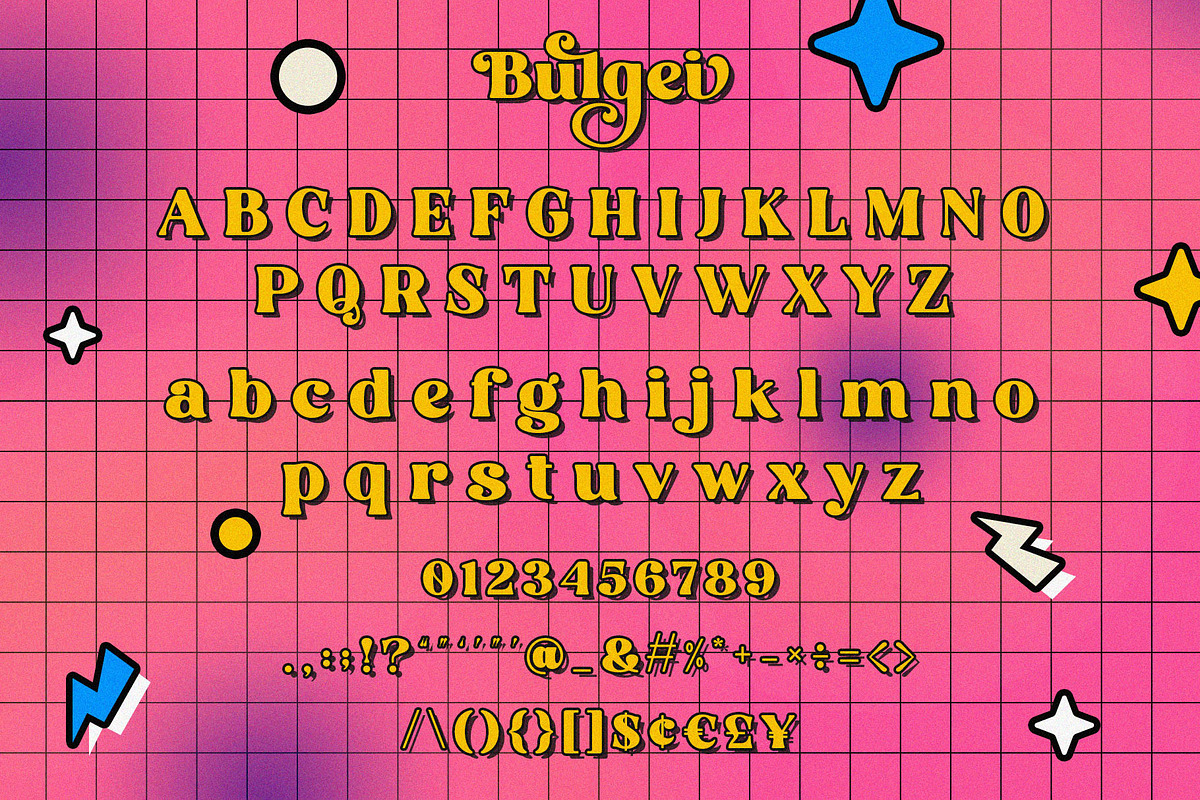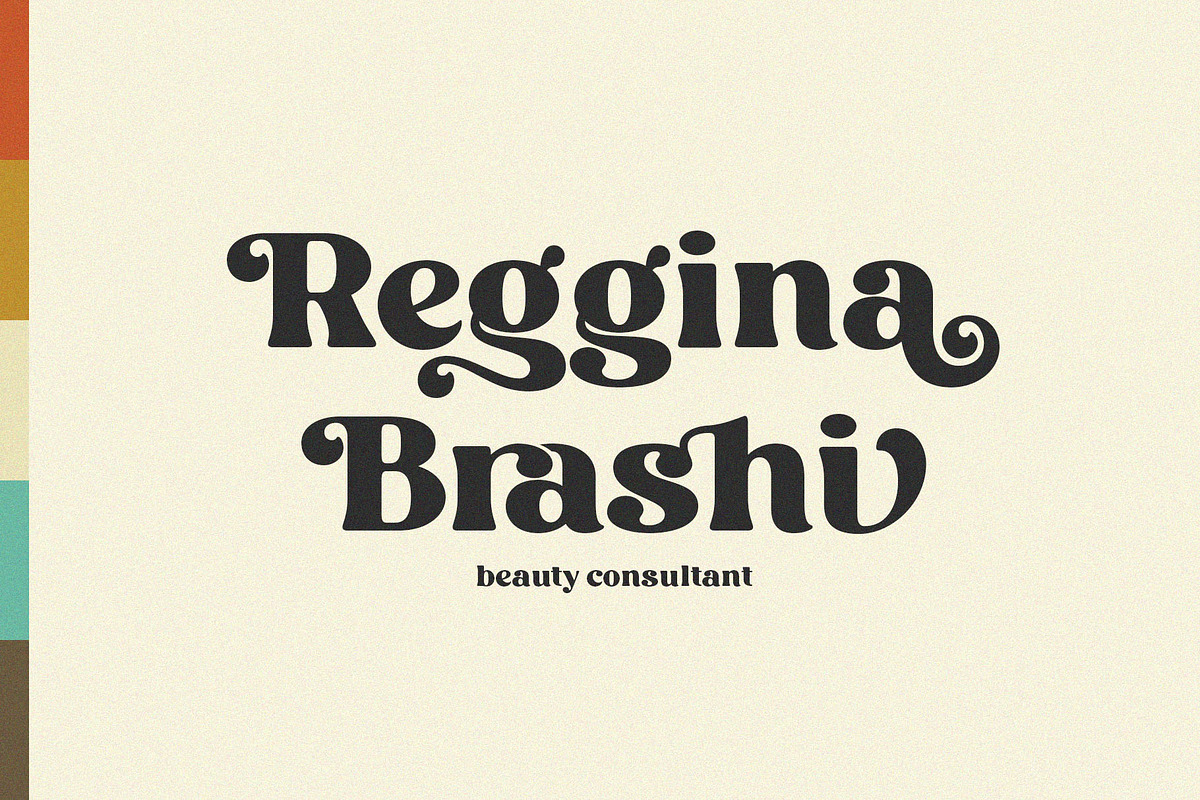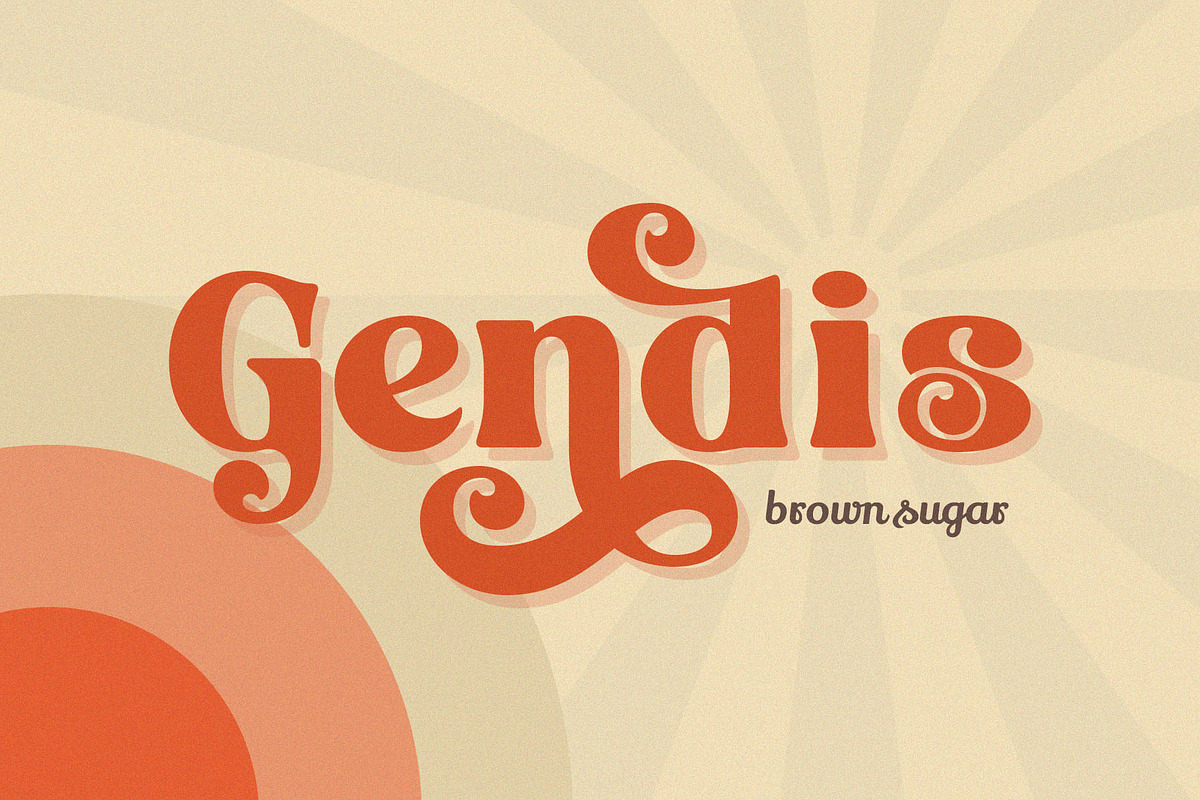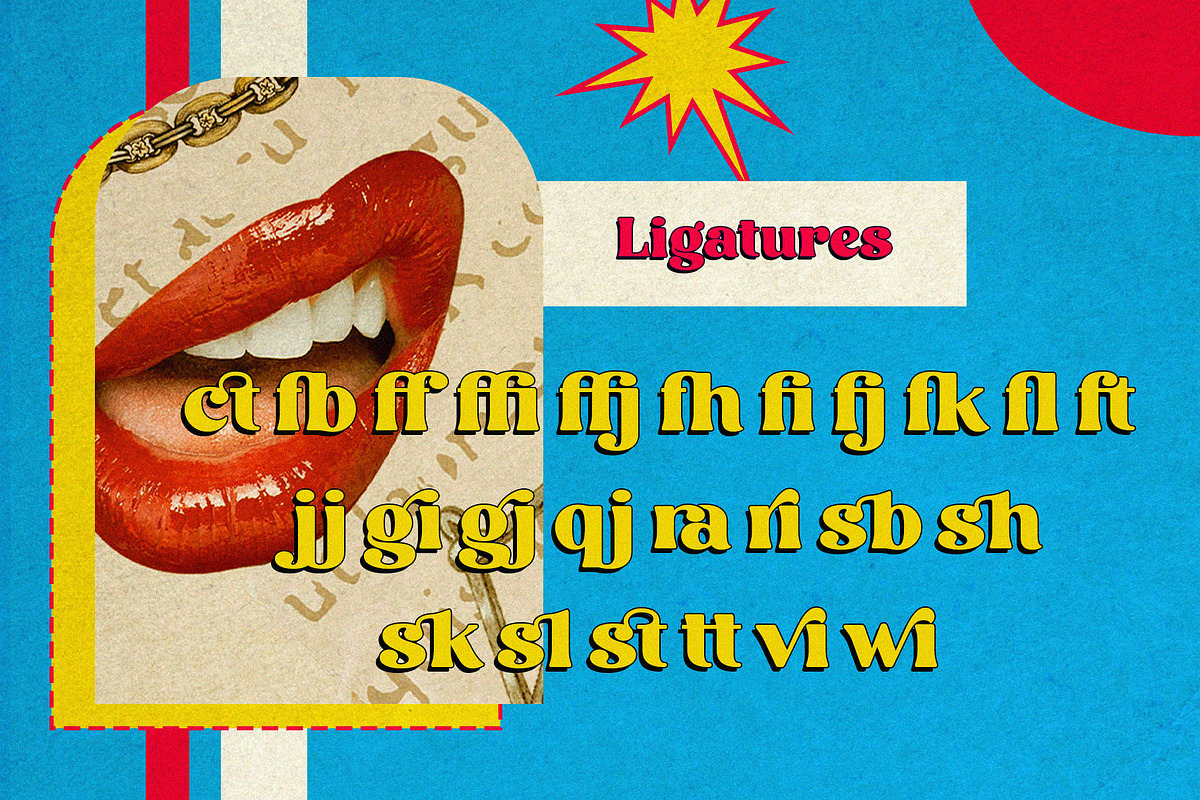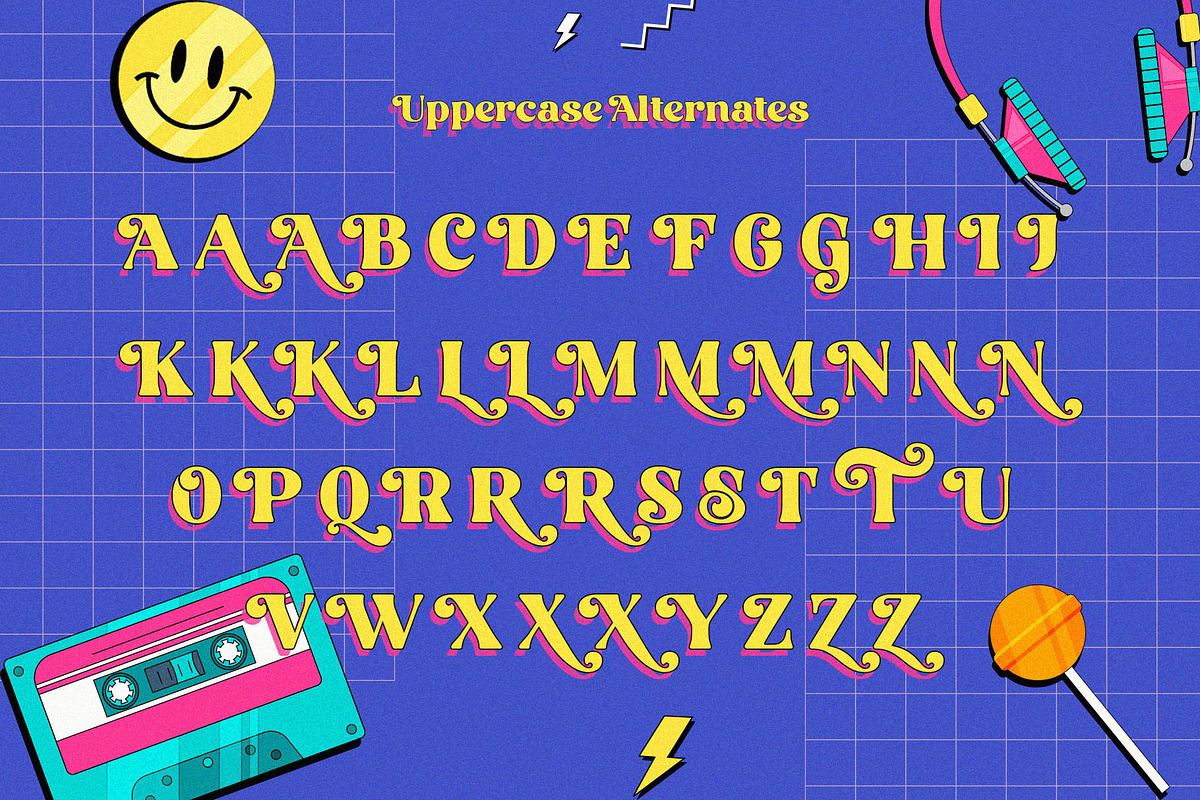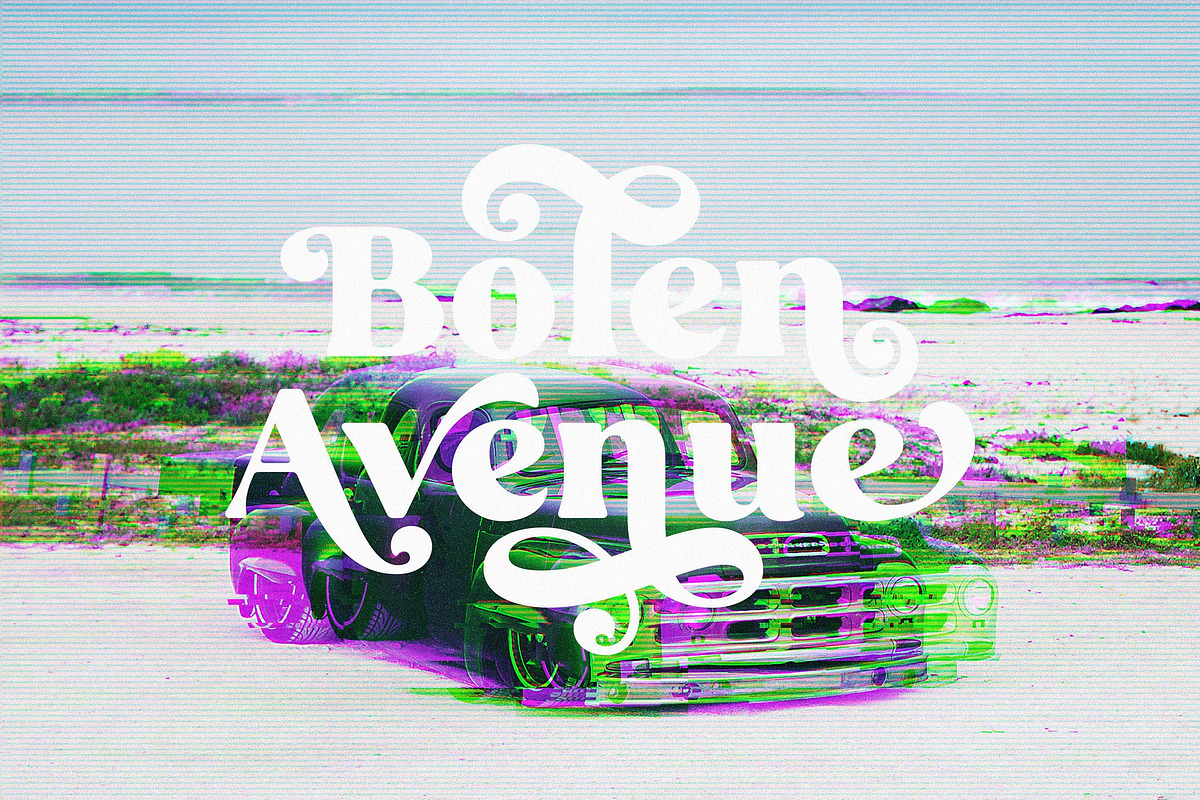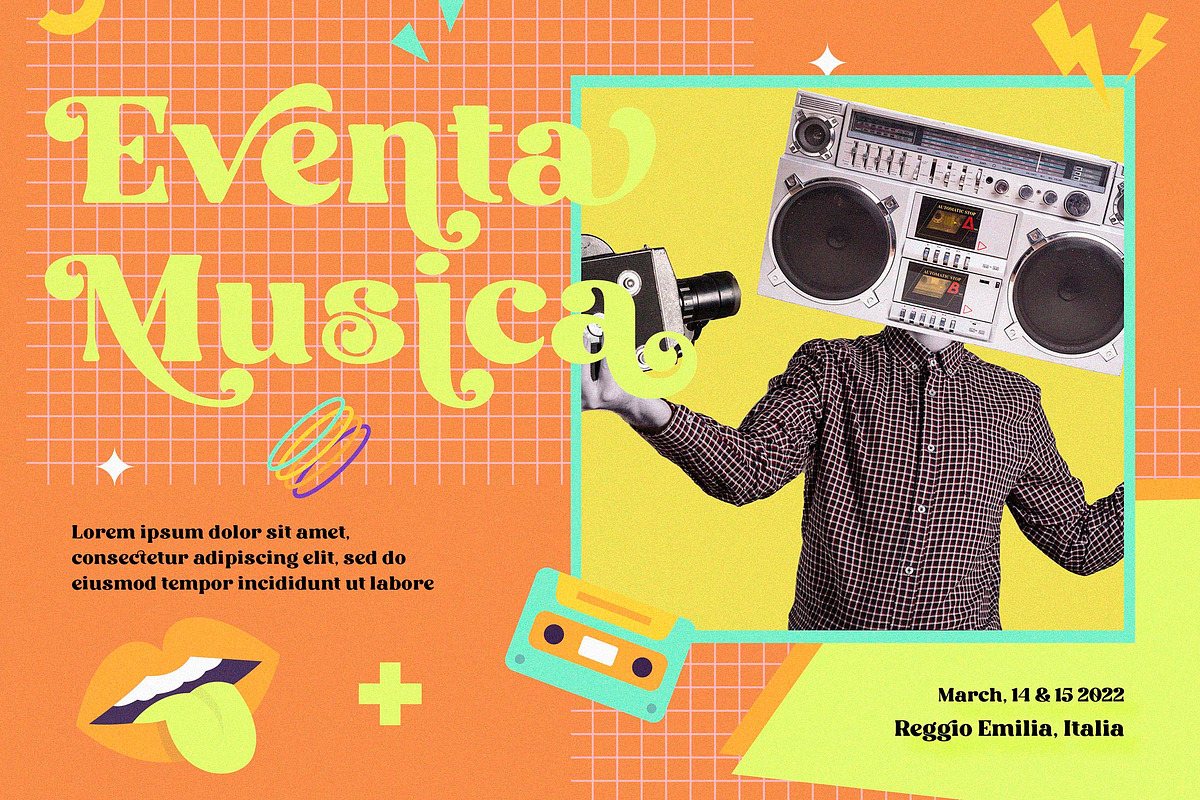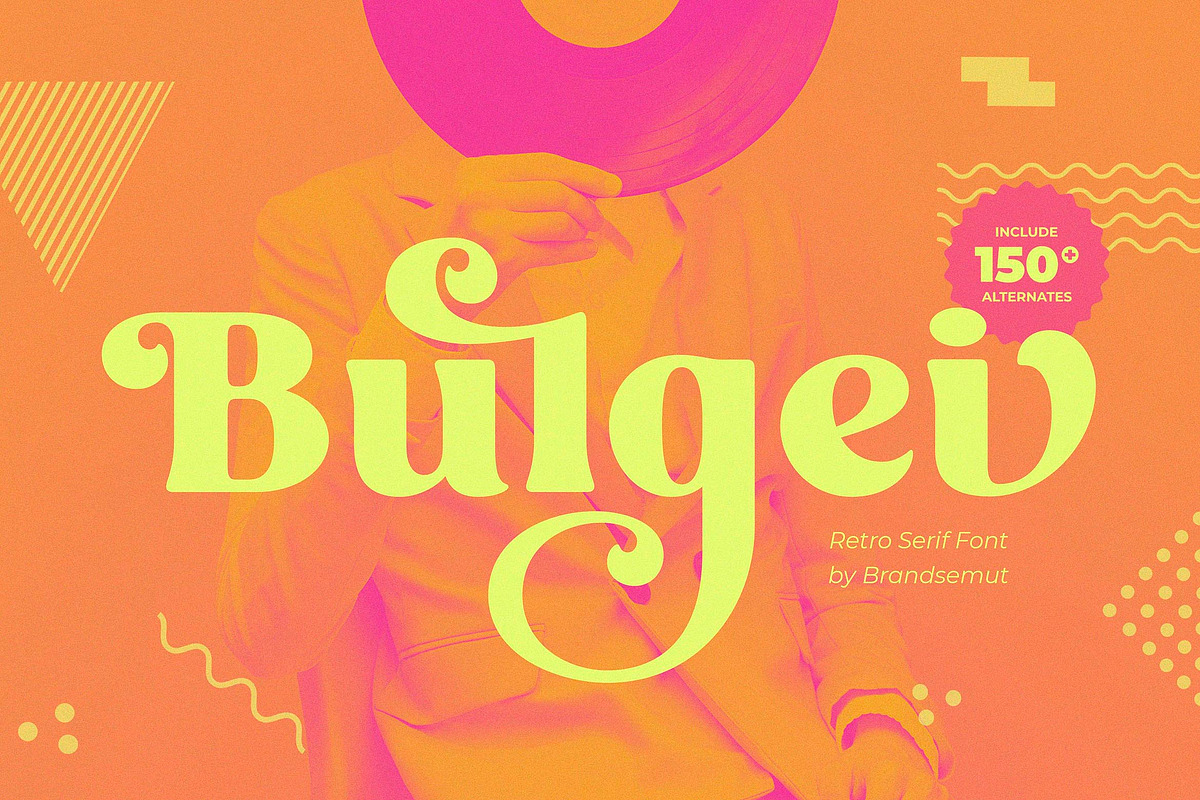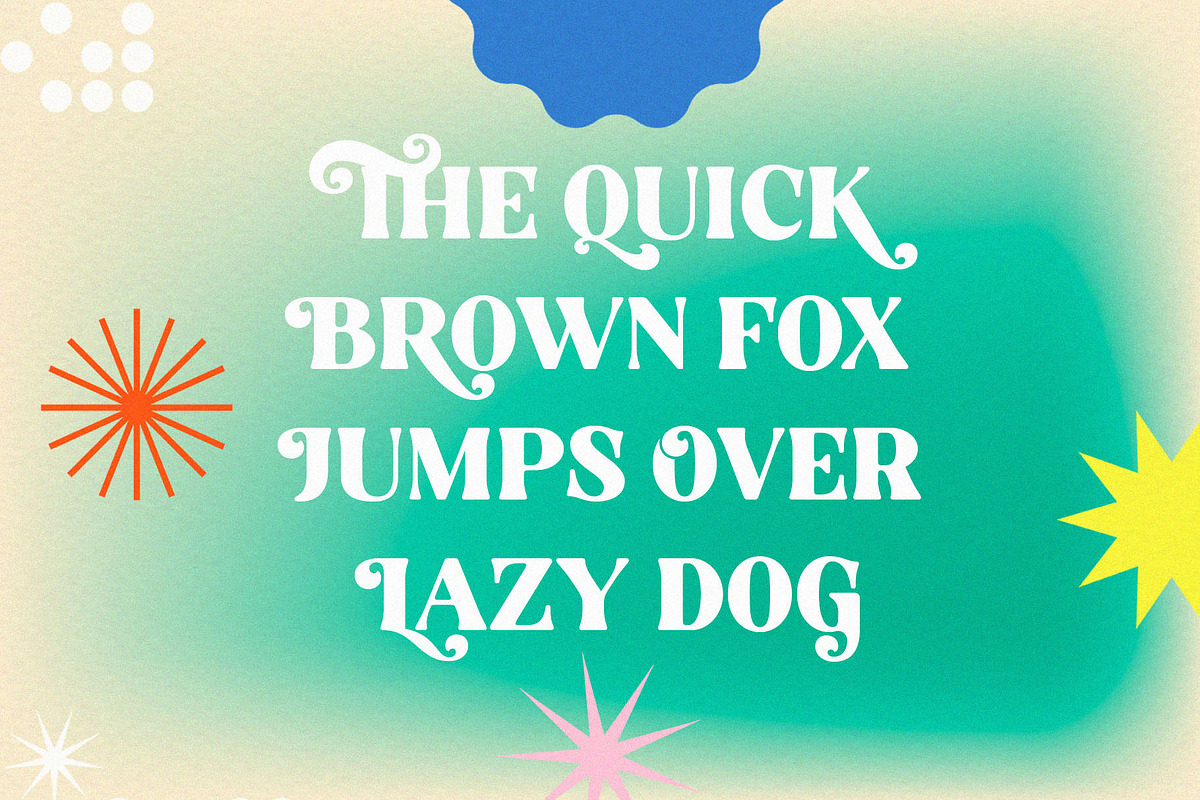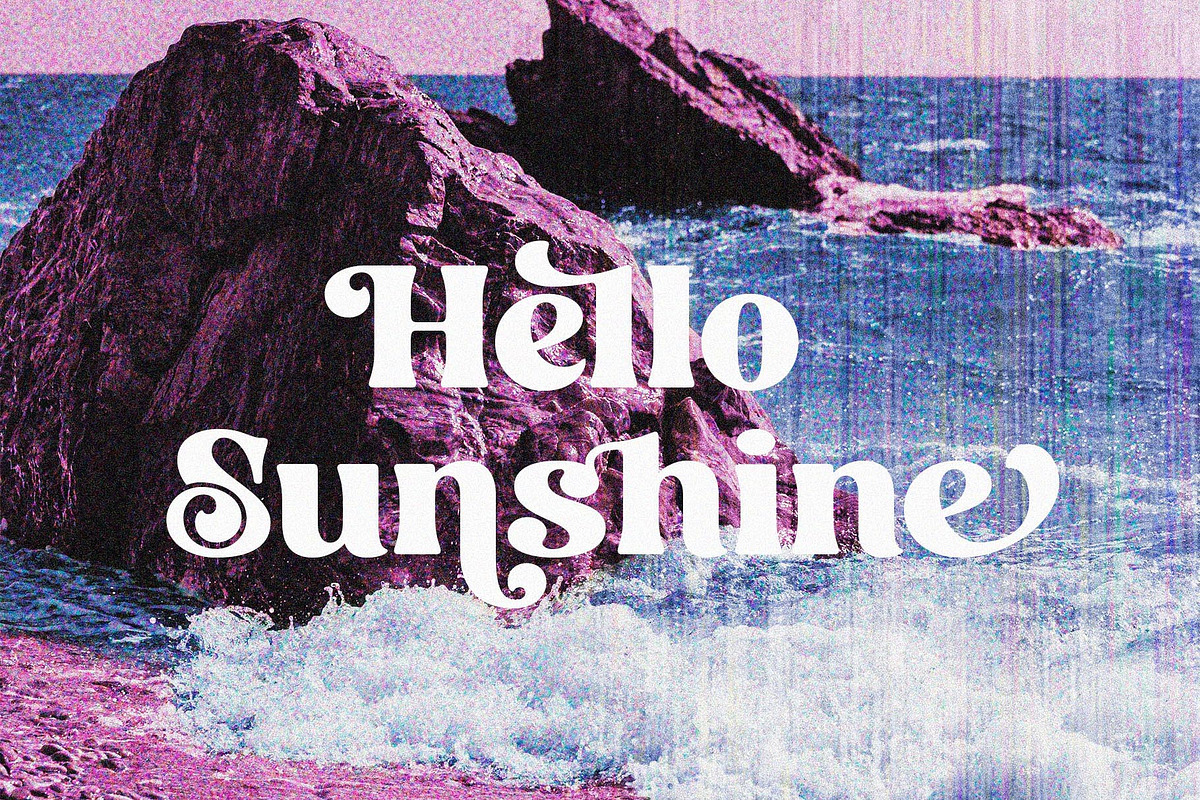
Bulgei - Modern Retro Serif
Introducing the new Bulgei Retro Typeface!! Bulgei is a modern and retro serif font. Best used as a display for headings, logos, branding, magazines, product packaging and invitations. Bulgei come with clean lines and smooth curves give any project an extra touch of class. For those of you who are needing a touch of classic, stylish, classy, retro and modernity for your designs, this font was created for you!
Bulgei was built with more than 150 Alternates, OpenType features and includes ligatures, numbers, punctuation, and it also supports other languages.